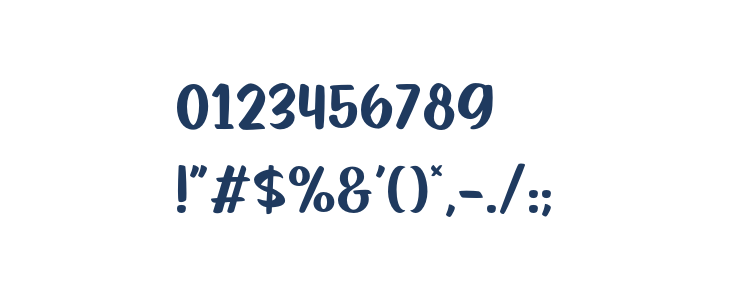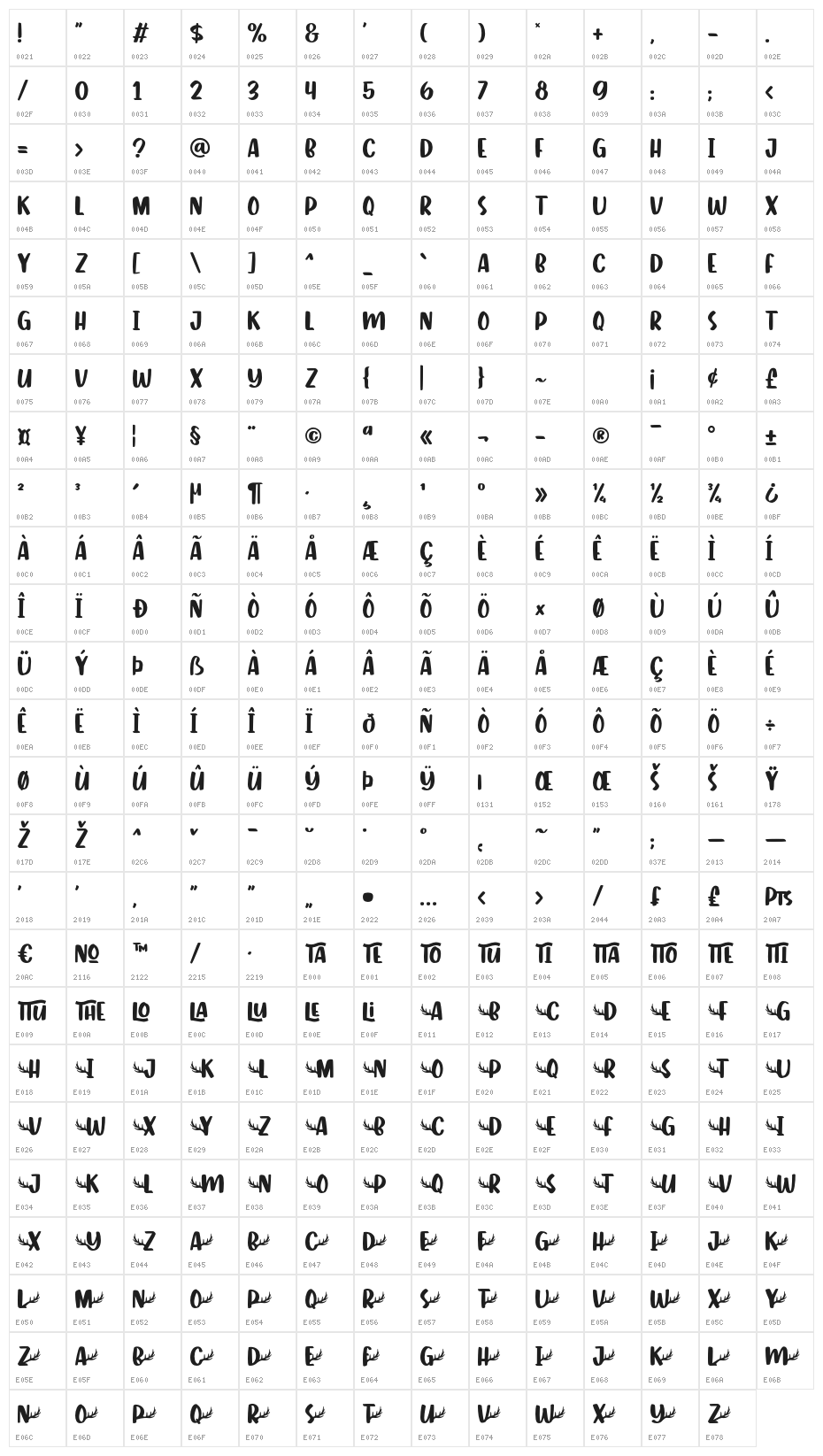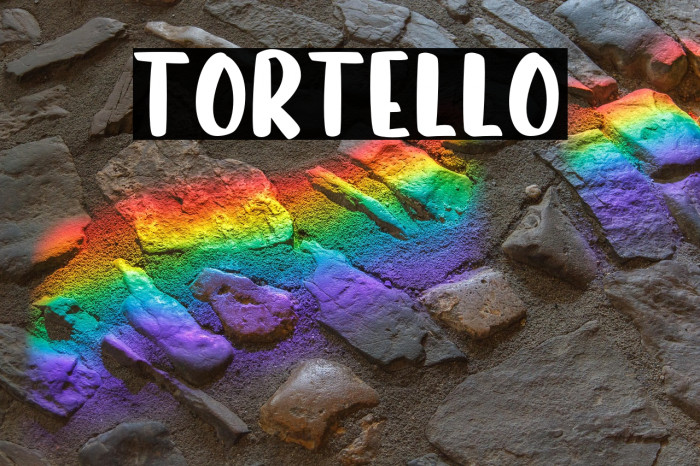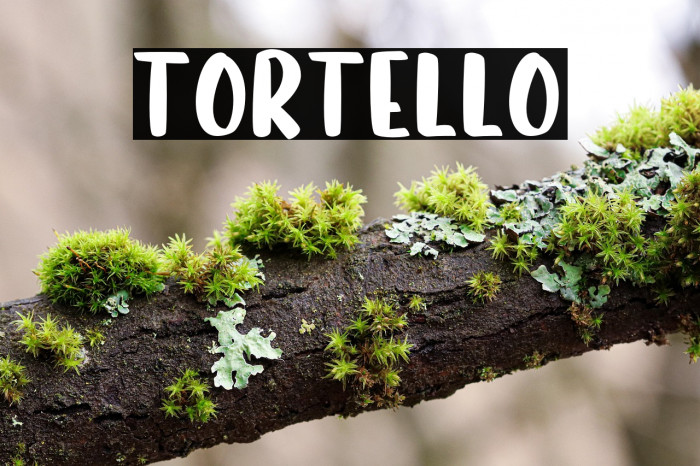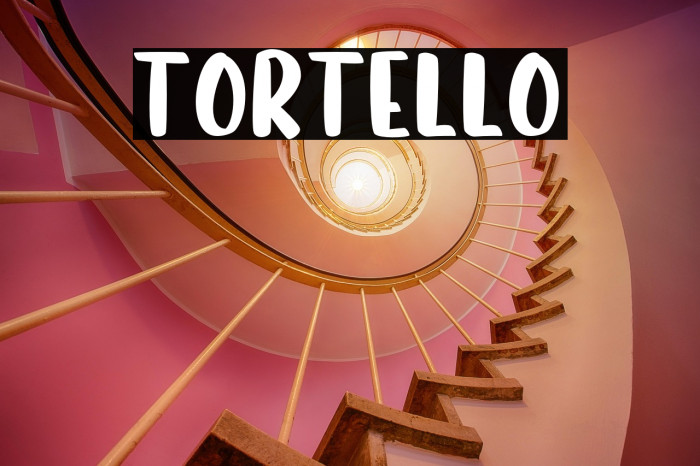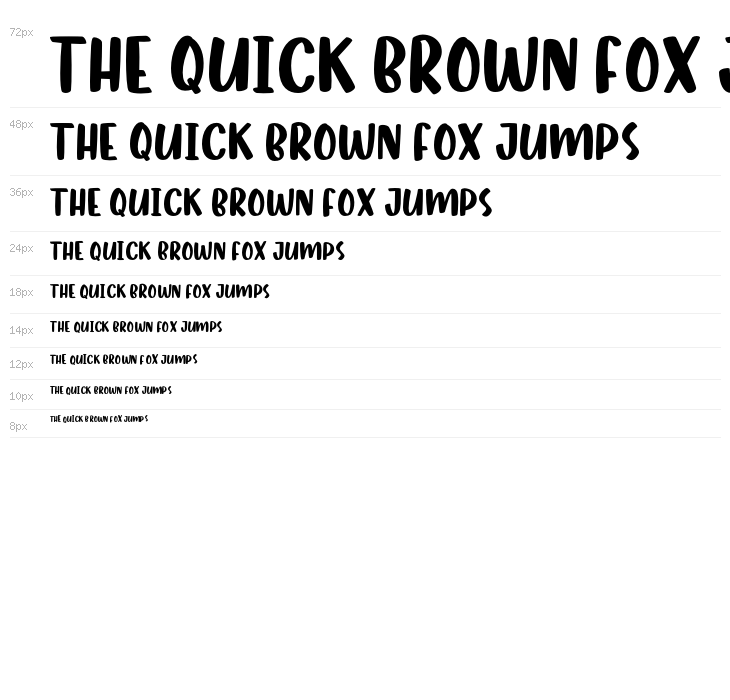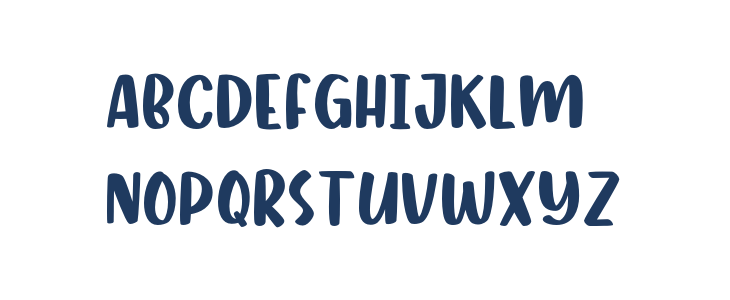
Tortello Font
Tortello Description
This font features a playful and bold handwritten style, characterized by its thick, rounded strokes and slightly irregular shapes. The letters have a casual, friendly appearance, making them ideal for projects that require a personal touch. The uppercase and lowercase letters maintain a consistent style, with a slight slant that adds to the informal feel. The numerals and special characters are designed to match the overall aesthetic, ensuring a cohesive look across all text elements. The font's unique charm lies in its ability to convey warmth and approachability, making it suitable for a variety of creative applications.
| Proposed Projects | Ideal for greeting cards, children's books, playful branding, and social media graphics. |